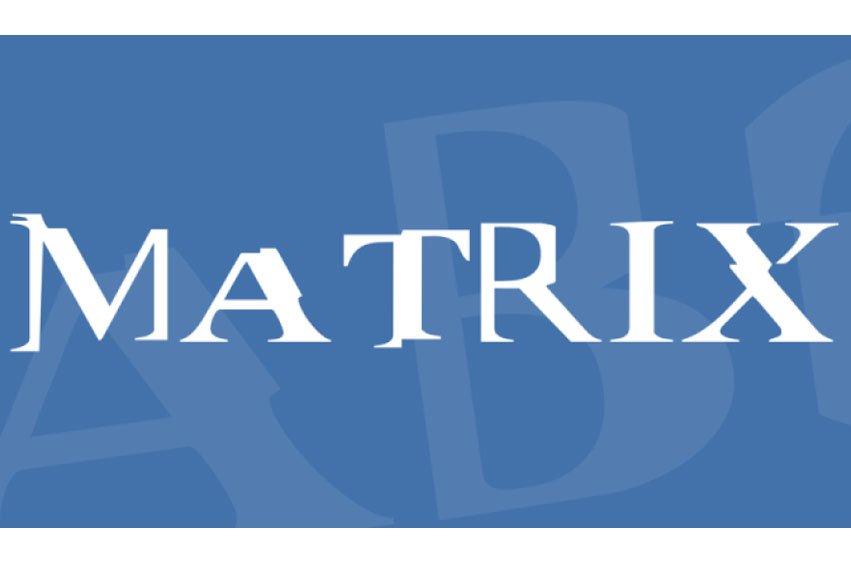
Matrix Serif Font fits in headlines, logos, posters, flyers, invitations, name cards, branding materials, print media, editorial layouts, and many more.